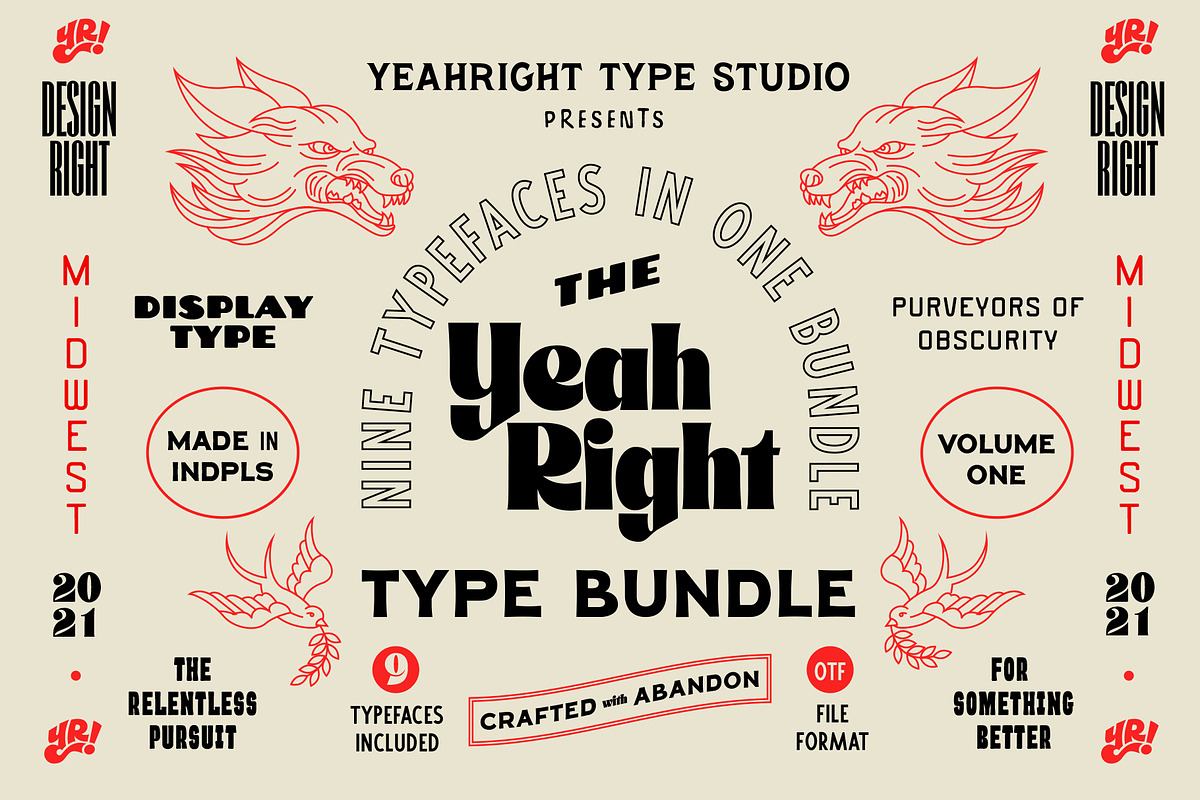
The Yeahright Type Bundle Vol 1 Free Download
The Yeahright Type Bundle Vol 1 Free Download is a dynamic and versatile collection of fonts crafted for bold designers and creatives who aren’t afraid to stand out. This bundle features a mix of strong sans-serifs, playful scripts, and eye-catching display fonts—perfect for branding, social media graphics, posters, or any design that demands attention. Whether you're going for edgy or elegant, this bundle gives you the freedom to express it all in style.
Packed with character and flexibility, The Yeahright Type Bundle Vol 1 Free Download is a must-have resource for designers looking to expand their font library with high-impact, professional-quality typefaces. Each font in the bundle has been thoughtfully designed to work harmoniously in modern layouts and creative compositions. From bold headlines to stylish logos, the Yeahright Bundle helps you make a statement without saying a word.